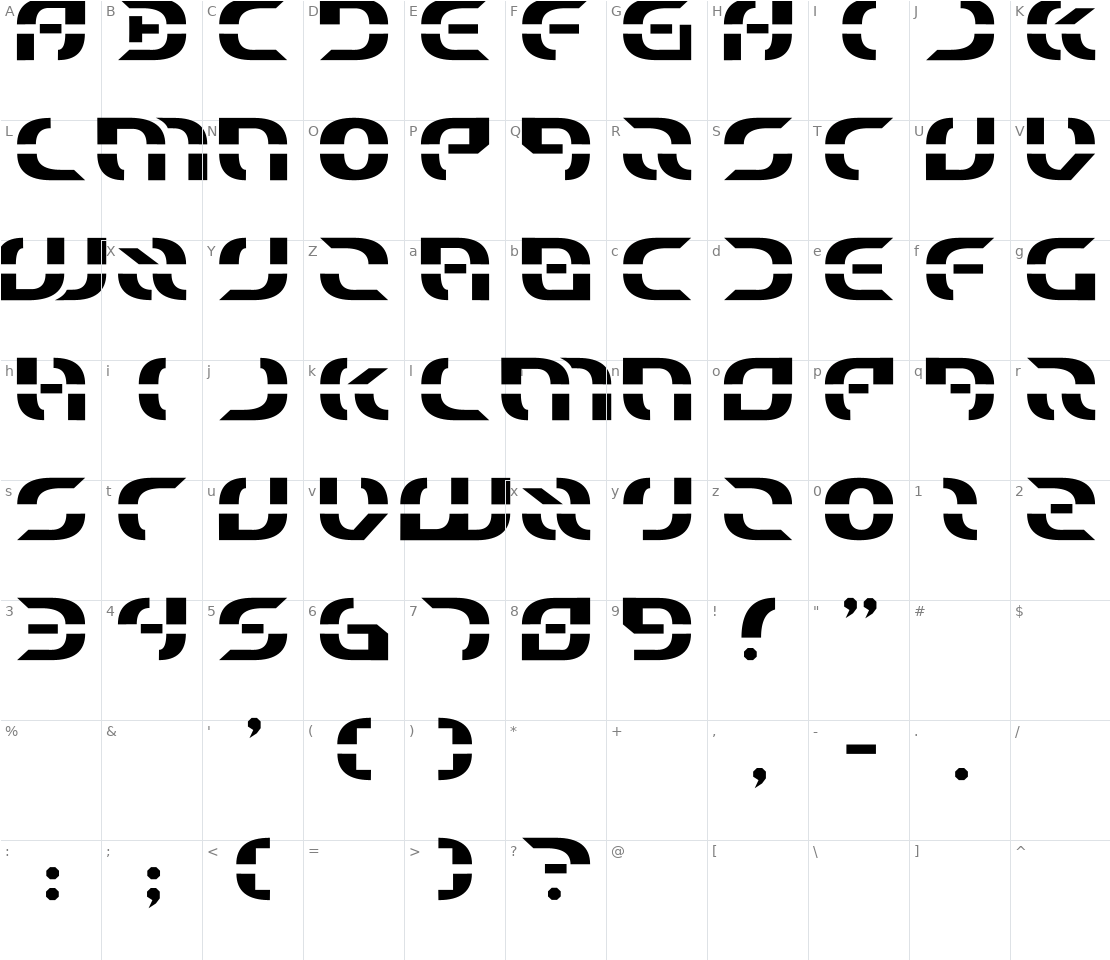
Starfighter
Starfighter is a bold, wide display face from Iconian Fonts with sharp angular geometry that feels built for starship hulls and galactic warfare. The letterforms are heavily geometric and spread out, giving headlines and title screens a commanding, cinematic presence. It slots right into game logos, sci-fi movie titles, and space-themed branding where you need type that reads loud and futuristic from across the room.